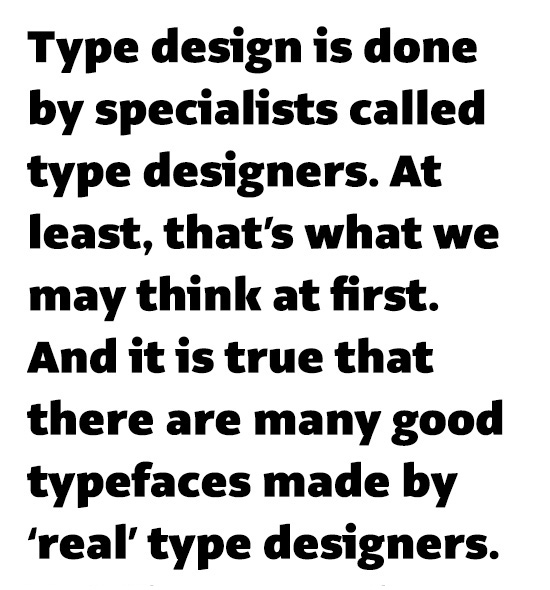
Alto is a new sanserif 'superfamily' in the OurType collection.
Designed by Thomas Thiemich, Alto is a no-nonsense typeface that avoids quirky details in favour of down-to-earth usability. Its neutral design is well attuned to the needs of day-to-day designing without adding too much flavour. It is indeed precisely this balance that Thiemich set out to achieve.
With its various design features, including 'true' italics (rather than sloped romans), Alto is by no means a 'grotesque'. It joins a group of contemporary 'humanist' sanserifs notable for their large font families, whose best-known members include FF Meta (Erik Spiekermann) and FF Thesis (Lucas de Groot).
Alto consists of nine weights - Thin, ExtraLight, Light, Normal, SemiBold, Bold, ExtraBold, Black and ExtraBlack - of roman and italic designs. Next to the standard character set (STD), the pro character set (PRO) includes small caps; lining, old style and small cap figures (each in tabular and proportional widths); fractions; comprehensive superiors, inferiors, nominators and denominators; case sensitive punctuation sets; mathematical and monetary symbols; arrows; standard and discretionary ligatures; and a complete range of accents covering all (Latin script based) Western, Central and East European languages.
Alto is additionally built around four widths - normal, condensed, extra condensed, and monospaced - making it OurType's largest sanserif font family to date.
Sketched out in 2005, Alto was first used for the design of the 2006-7 semester planner for the Hochschule für Grafik und Buchkunst in Leipzig, proving itself as an excellent choice for the display of complex information. Also in 2005, Alto featured in the Type an sich exhibition 'Fred Smeijers and a new generation of type designers' organized by the 'Catapult' design group in Antwerp, Belgium.